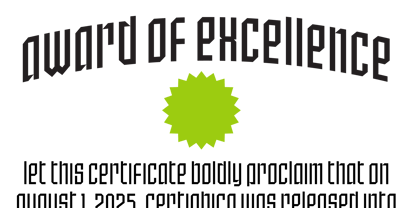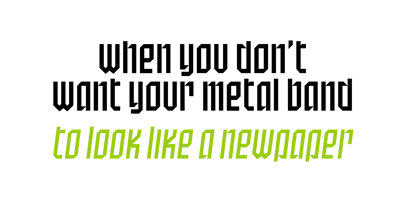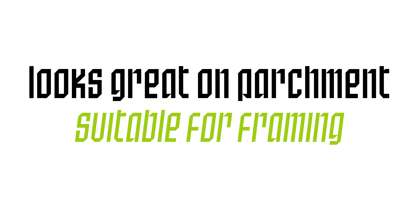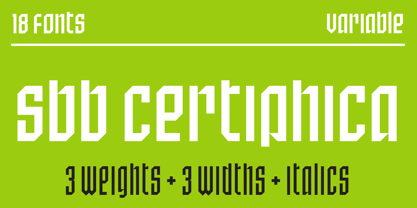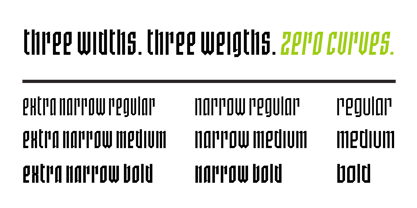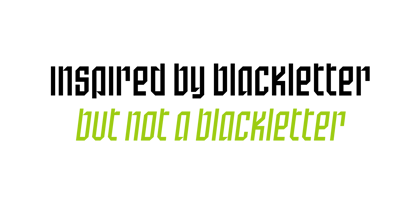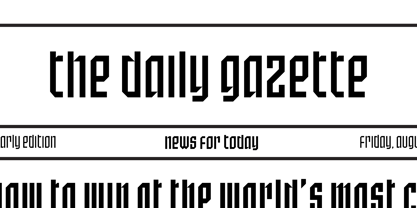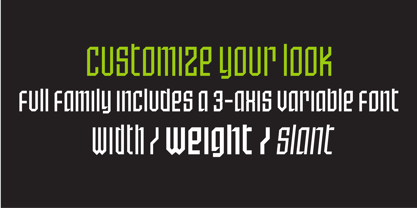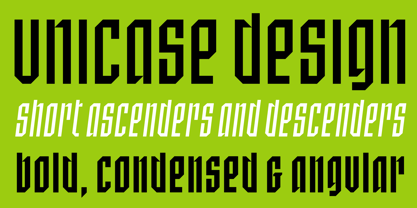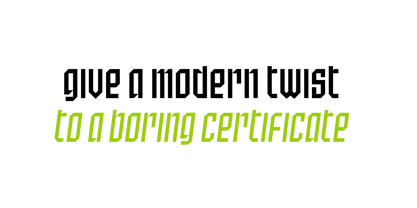
SbB Certiphica
by Sketchbook B
The SbB Certiphica Font Family was designed by Bob Wertz and published by Sketchbook B. SbB Certiphica contains 19 styles and family package options.
Inspired by blackletter.
SbB Certiphica takes cues from blackletter typefaces, making it the perfect font for certificates, biker gangs, tattoo parlors and religious organizations. Certiphica is a bold unicase design with short ascenders and descenders, allowing for tight leading. Perfect as a modern replacement for a blackletter font.
About Sketchbook B
Sketchbook B typefaces are designed by Bob Wertz and inspired by a range of childhood influences. Arcades and dot matrix printers. Skyscrapers and brutalist architecture. Magazine ads and newsprint. Commodore computers and software packaging. Sports posters and team logos. Often angular and experimental, Sketchbook B designs provide a unique look for branding and visual identity projects.